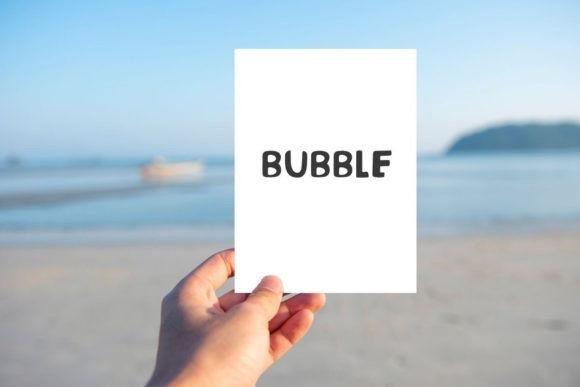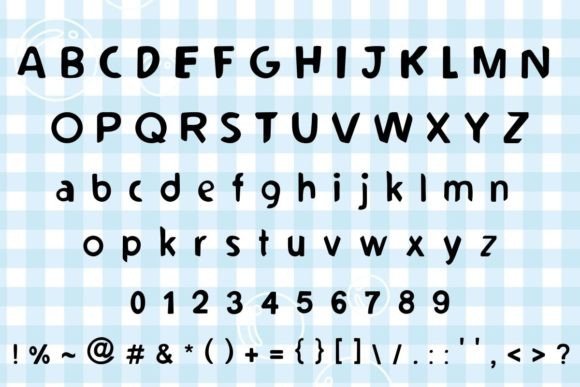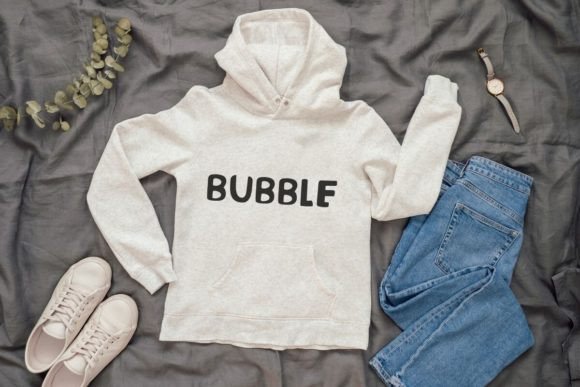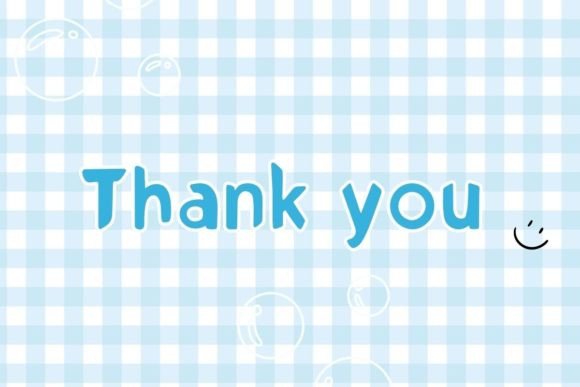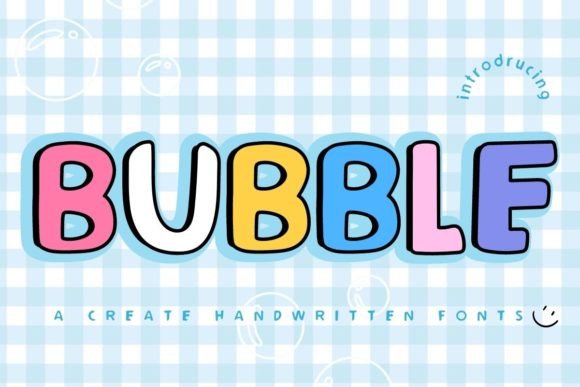
Bubble Font: The Ultimate Choice for Playful and Creative Designs
Are you looking for a font that can add a touch of playfulness and friendliness to your designs? Look no further than Bubble Font! This adorable display font is perfect for creating eye-catching posters, fun children-themed designs, colorful stickers, and more. With its graceful and fluid letterforms, Bubble Font exudes a sense of cuteness that is sure to capture the attention of your audience.
What is Bubble Font?
Bubble Font is a modern display font that features rounded and smooth letterforms, giving it a bubbly and cheerful appearance. The font is designed to be highly legible and versatile, making it suitable for a wide range of design projects. Whether you’re creating a poster for a kids’ party, a sticker for a children’s book, or a social media graphic for a crafty brand, Bubble Font is the perfect choice.
Key Features of Bubble Font
- Cute and Friendly: Bubble Font has a playful and approachable feel that makes it perfect for designs that require a touch of whimsy.
- Graceful and Fluid: The font features smooth and flowing letterforms that give it a sense of elegance and sophistication.
- Highly Legible: Bubble Font is designed to be easy to read, even at small sizes, making it perfect for use in a variety of design projects.
- Versatile: The font is suitable for use in a wide range of design projects, from posters and stickers to social media graphics and more.
Uses for Bubble Font
Bubble Font is a versatile font that can be used in a variety of design projects, including:
- Posters: Create eye-catching posters for kids’ parties, events, and promotions with Bubble Font.
- Children-Themed Designs: Use Bubble Font to create fun and engaging designs for children’s books, toys, and games.
- Stickers: Add a touch of playfulness to your stickers with Bubble Font, perfect for use in scrapbooking, journaling, and more.
- Social Media Graphics: Use Bubble Font to create fun and engaging social media graphics for crafty brands, kids’ events, and more.
Tips for Using Bubble Font
Here are some tips for getting the most out of Bubble Font:
- Use it sparingly: Bubble Font is a display font, so use it sparingly to add emphasis and create visual interest.
- Pair it with other fonts: Combine Bubble Font with other fonts to create a unique and visually appealing design.
- Experiment with colors: Bubble Font looks great in bright, bold colors, so don’t be afraid to experiment and find the perfect hue for your design.
Bubble Font is a fun and playful display font that is perfect for designers and crafters looking to add a touch of whimsy to their designs. With its cute and friendly letterforms, high legibility, and versatility, Bubble Font is the ultimate choice for a wide range of design projects. So why wait? Download Bubble Font today and start creating your own playful and engaging designs!